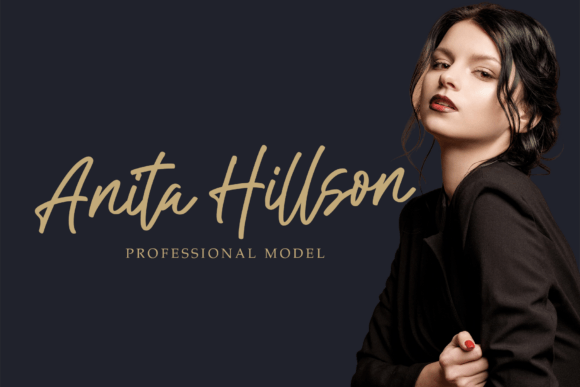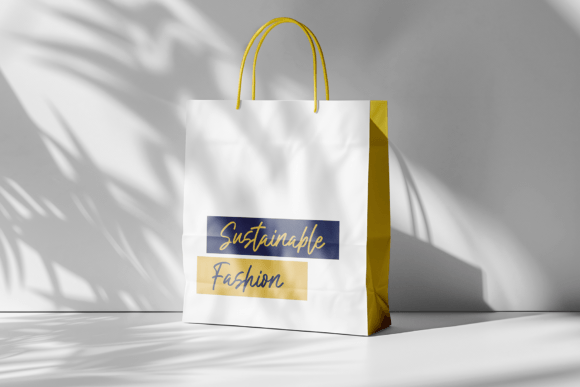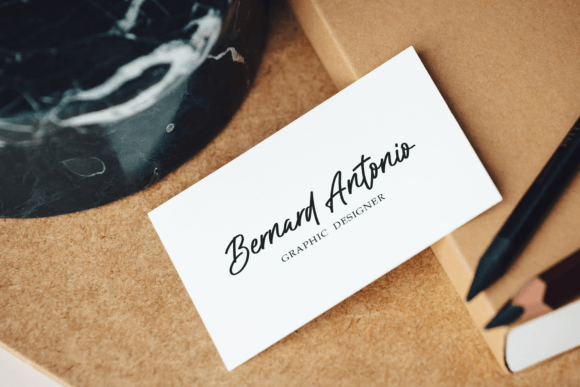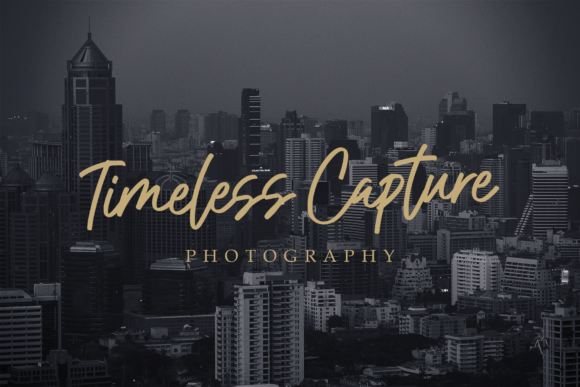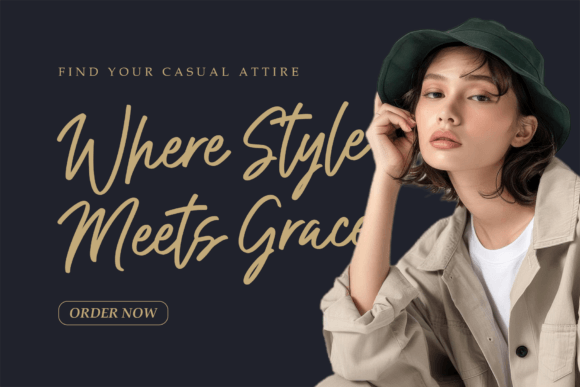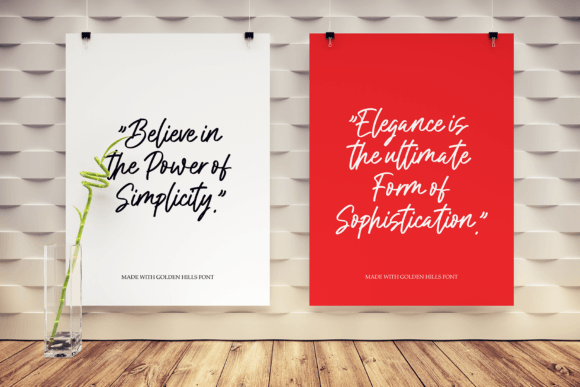
Introduction to Golden Hills Font Font
Fonts play a crucial role in design, and the Golden Hills Font font is a typeface that brings both character and versatility to any project. Whether you’re working on a branding project, a website, or a print design, the Golden Hills Font font offers a unique style that can elevate your work.
Golden Hills is a script font that captures the casual elegance of modern handwriting.
With its smooth, flowing strokes and relaxed yet stylish vibe, Golden Hills brings a personal touch to your design projects Ideal for advertising, posters, branding, packaging, and more, this font adds a contemporary flair to any text, making it perfect for conveying messages with warmth and authenticity.
Key Features of Golden Hills Font Font
Why Choose Golden Hills Font Font?
The Golden Hills Font font is more than just a typeface – it’s a design tool that helps you communicate your message with style and clarity. Its unique character set and versatile design make it suitable for a wide range of applications, from elegant invitations to bold headlines.
With its carefully crafted letterforms and balanced proportions, the Golden Hills Font font ensures readability and visual appeal across all mediums.
What makes Golden Hills Font font special?
The Golden Hills Font font stands out with its unique design, exceptional readability, and versatility across various design applications.